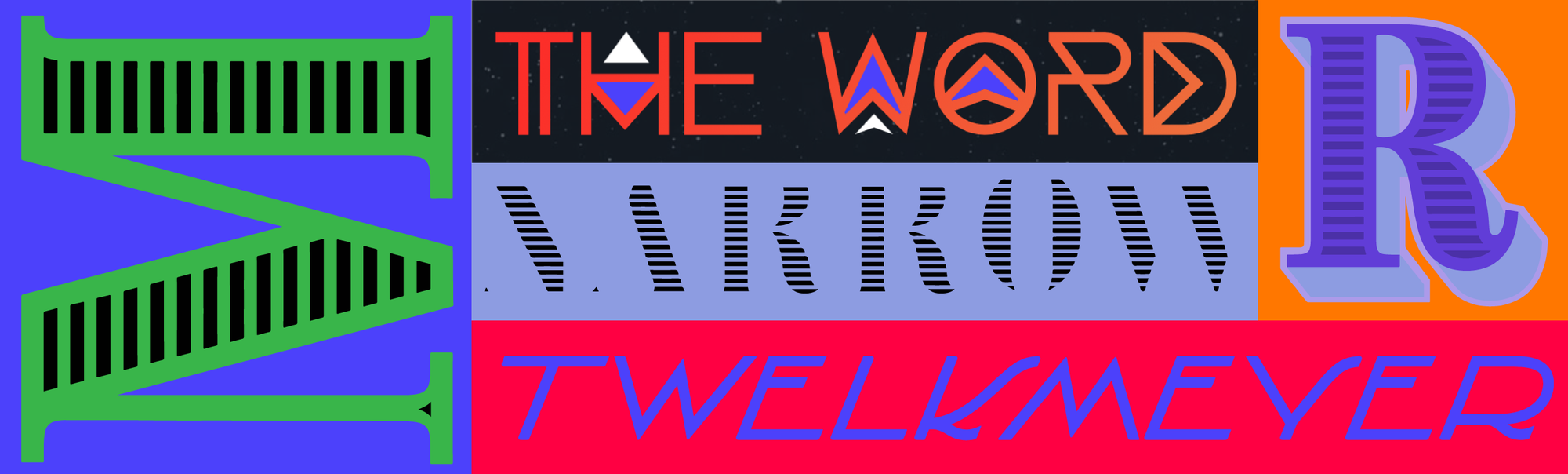
Become font-savvy today: four examples of awesome typography
Unfortunately, there are no shortcuts to becoming proficient with fonts: you need to be constantly on the lookout for great pairings — check out Readymag Almanac and Readymag Explore if you haven’t already — and to monitor as many publications as possible.
Unfortunately, there are no shortcuts to becoming proficient with fonts: you need to be constantly on the lookout for great pairings — check out Readymag Almanac and Readymag Explore if you haven’t already — and to monitor as many publications as possible. However, good taste for type can be cultivated. Today, we offer four font-related projects with great typography to inspire you.
Font combinations library
This kit offers eight popular font combinations meant to speed up a designer’s workflow. You can download them for free or for a donation.
Twelkmeyer font
The multilingual accident typeface is a recreation of a font designed by Soviet architect and painter Victor Twelkmeyer. The creator is San Francisco-based visual designer Anna Seslavinskaya.
Brim Narrow font
Brim Narrow is a chromatic typeface created by UK designer Jamie Clark. It has eight styles designed to stack together, imitating 19th-century signage. In this long read, Jamie tells about the challenges he faced while designing the font and showcases some of its letters by applying animations to them.
Mica font
Mica is an experimental typeface inspired by the structure of pseudohexagonal crystals composing the mica mineral. Made by San Francisco-based graphic designer Neha Hattangdi in 2019, it has simple and complex variants to help create nuance within each design. Mica can be downloaded as a vector font and used for free in personal, non-profit, and charity projects.